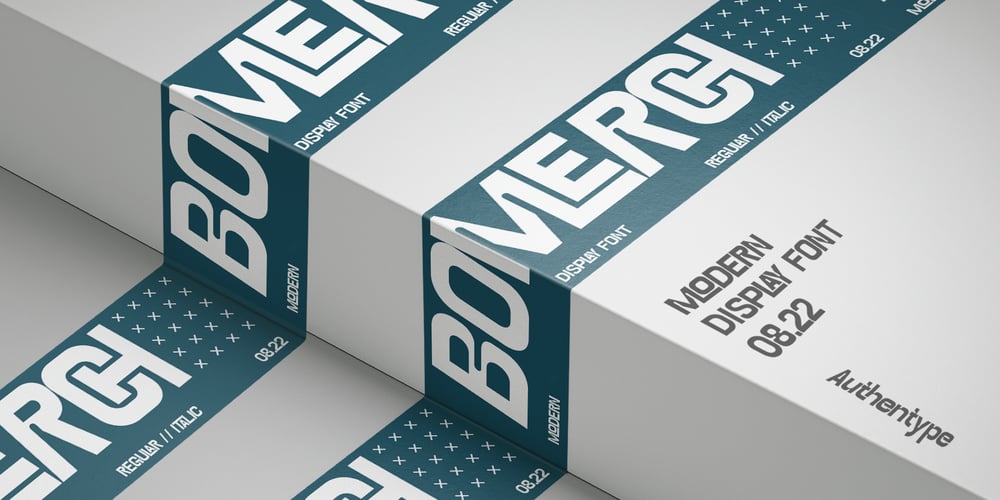
Bomerch Font Family was designed by Ekayasa and published by Authentype. Bomerch contains 2 styles and family package options. Bomerch Modern Display Font is a modern display font that includes Regular and Italic. This font is suitable for vibrant, energetic and bold designs such as sports poster designs, music posters, branding, t-shirts, prints, business cards, logos, posters, t-shirts, photography.